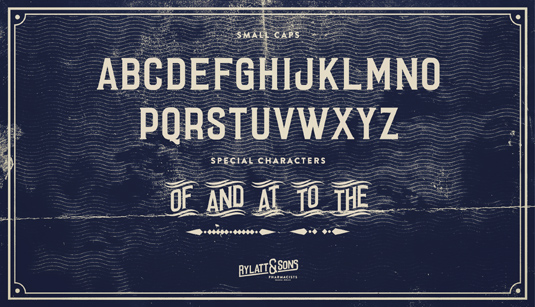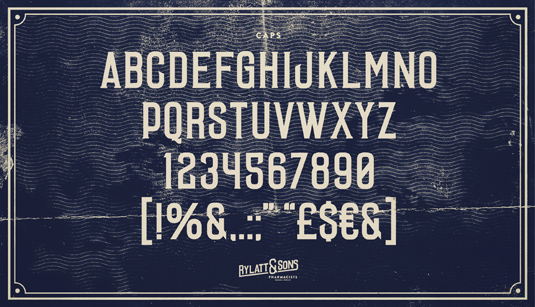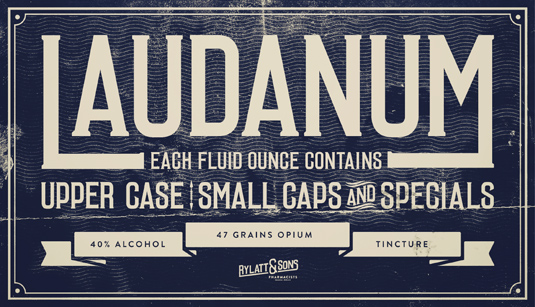
Font of the day: Laudanum
Laudanum by Carl Rylatt
Inspired by 18th and 19th century graphics and lettering, condensed serif display typeface Laudanum was created by designer Carl Rylatt. Available from Ten Dollar Fonts, Laudanum comes complete with a full set of uppercase letters, small caps, letters and a selection of special characters.